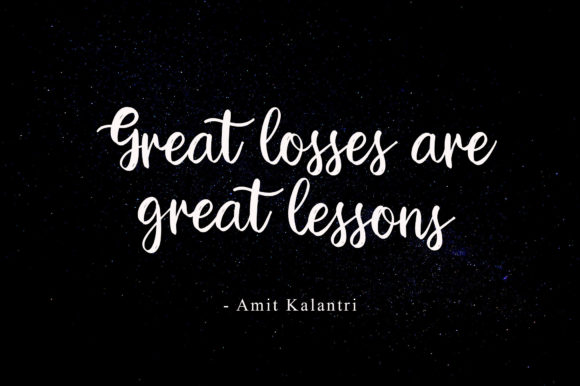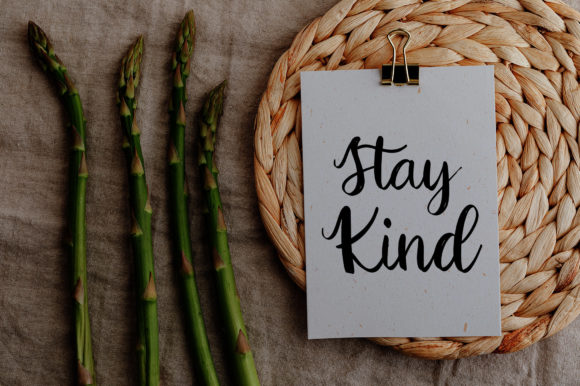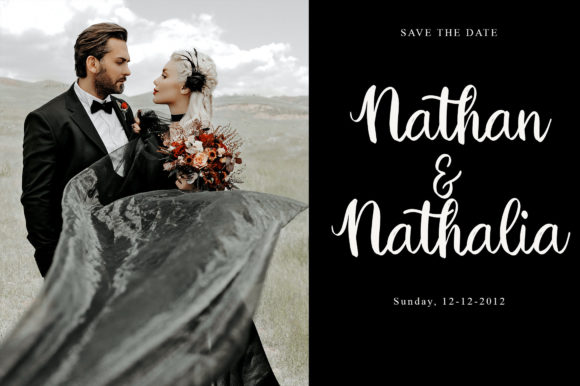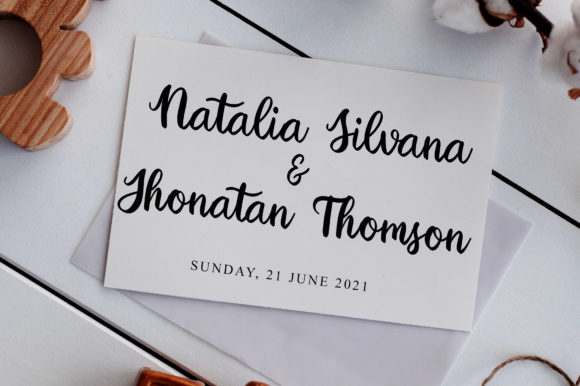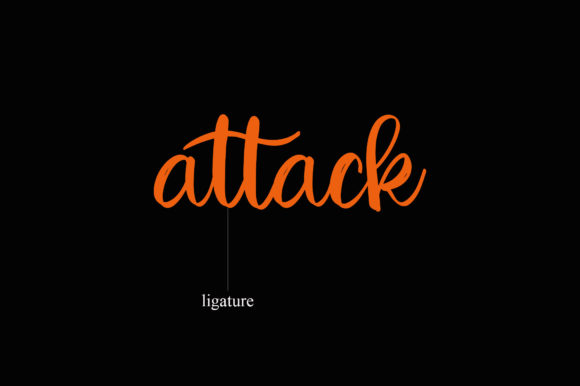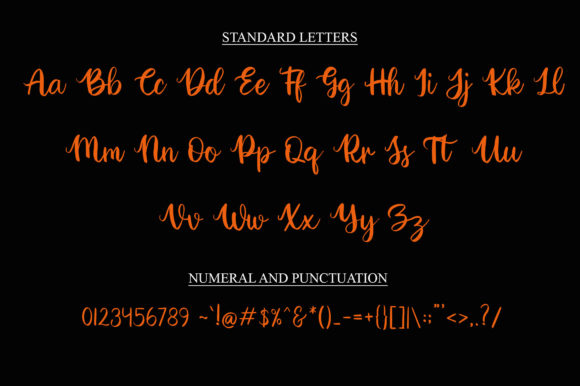
The Perfect Brush for Your Design
There’s nothing quite like the feeling of creating something from scratch. The blank page stares back at you, begging for life. You take a deep breath, pick up your pen, and let the ideas flow. The scribbles begin to take shape, and before you know it, a beautiful, handwritten design is born. This is the magic of the Ballerick Font – a timeless, brushed handwritten font that brings your designs to life.
Whether you’re crafting a logo, branding, or a heartfelt quote, the Ballerick Font is the perfect brush for your creative strokes. With its unique and beautiful touch, every letter becomes a work of art. Designers, take note – this font is a valuable addition to your toolkit, sure to elevate your designs and leave a lasting impression.
Ballerick Font Key Features
- Unique Characteristics: Ballerick Font features a unique blend of modern and vintage elements, with a distinctive ballerina-inspired design that adds a touch of elegance and sophistication to any text.
- Font Weight: The font is available in regular and bold weights, allowing designers to create a range of visual effects and emphasis.
Ballerick Font Review
I recently had the chance to work with the Ballerick font, and I’m here to share my honest thoughts.
First off, I love the unique character of this font. It’s a real head-turner, with its distinctive curves and flair. The Ballerick font is perfect for anyone looking to add a touch of whimsy to their design.
- It’s highly customizable, allowing you to tweak the settings to suit your needs.
- The font is well-suited for use in bold, eye-catching typography.
- It’s a great choice for designers who want to create a memorable brand identity.
While the Ballerick font is a standout in many ways, it’s not without its limitations.
- It may be too bold for some designs, so use with caution.
- The font’s unique character can be overwhelming if overused.
- It may not be suitable for body text, as it can be difficult to read in large quantities.
In short, the Ballerick font is a fantastic choice for designers who want to add a touch of personality to their work. While it may not be suitable for every project, it’s a great addition to any font collection.
Tips for Getting the Most Out of Ballerick Font
1. Use Ballerick font for headings and titles to create visual hierarchy.
2. Experiment with different font sizes and colors to achieve a unique look.
3. Pair Ballerick font with other fonts to create a visually appealing combination.
1. Branding and logos
2. Social media graphics
3. Infographics and data visualization
4. Editorial and publishing designs
Alternatives to Ballerick Font
Great Vibes Font is a beautiful, handwritten script font that is perfect for adding a touch of elegance and sophistication to your designs. It is ideal for use in invitations, posters, and other materials where a personal and unique touch is desired.
Great Vibes Font is similar to Ballerick Font in its cursive and elegant style, but it has a more refined and polished look. It is also more versatile and can be used in a wider range of design applications.
Pacifico Font is a beautiful, elegant script font that is perfect for use in designs where a touch of sophistication and luxury is desired. It is ideal for use in invitations, posters, and other materials where a unique and eye-catching look is desired.
Pacifico Font is similar to Ballerick Font in its elegant and cursive style, but it has a more relaxed and casual feel. It is also more suitable for use in designs that require a touch of warmth and personality.
Carolyna Pro Font is a beautiful, elegant script font that is perfect for use in designs where a touch of sophistication and luxury is desired. It is ideal for use in invitations, posters, and other materials where a unique and eye-catching look is desired.